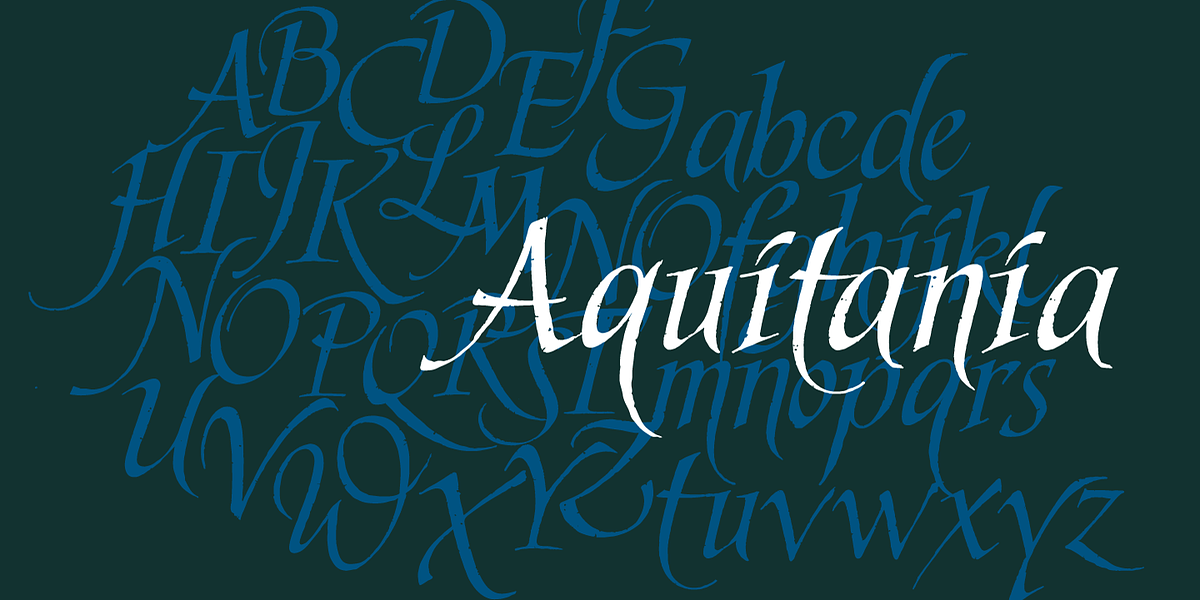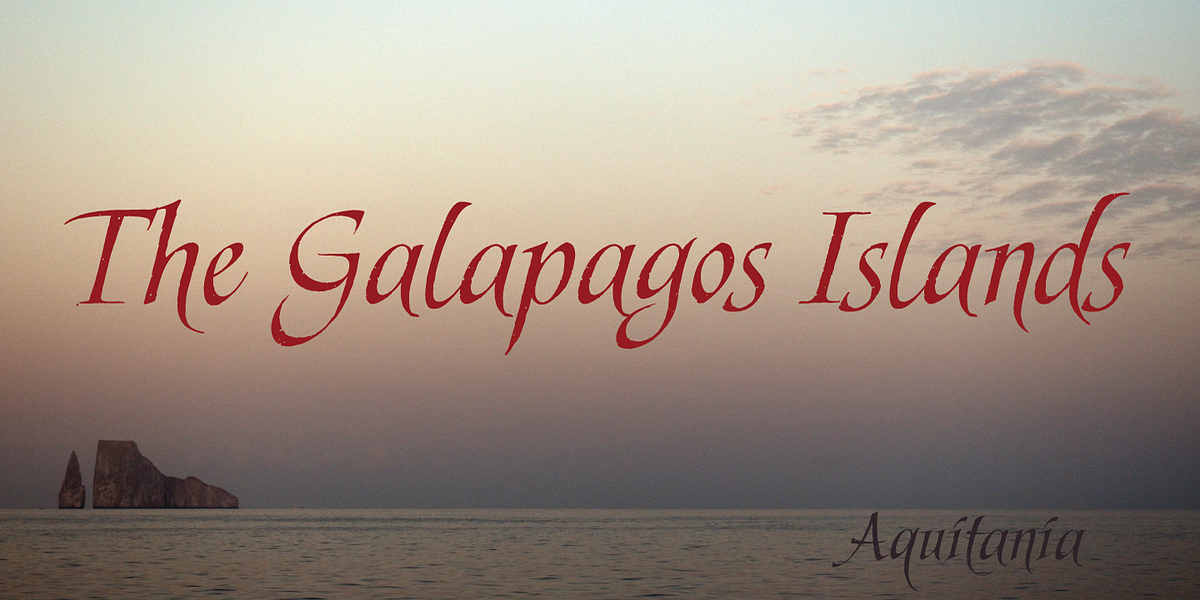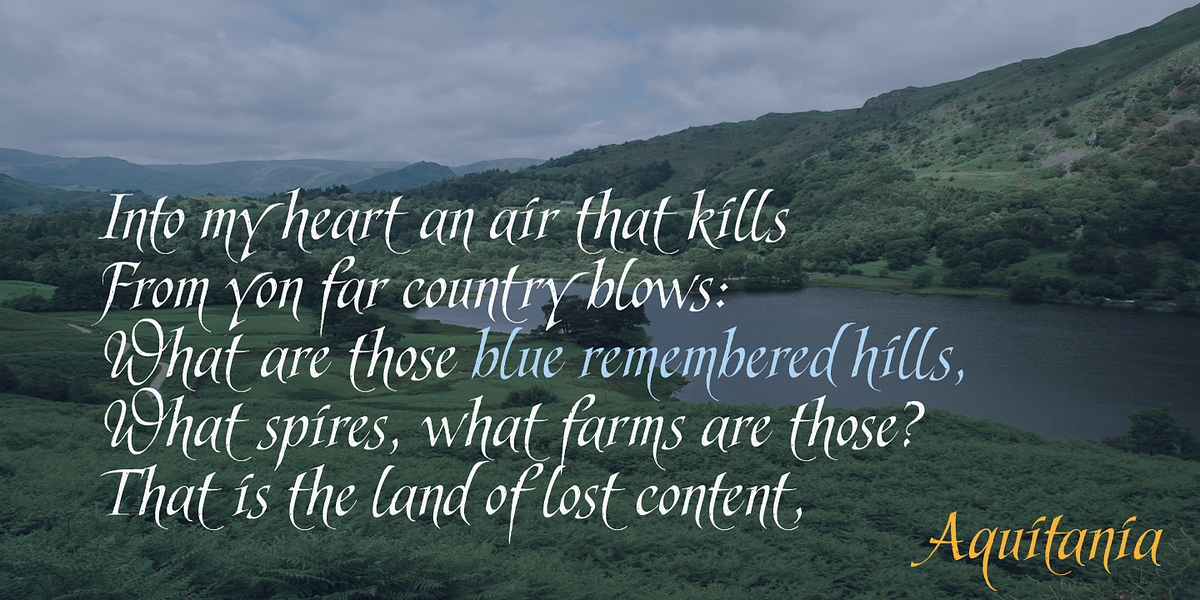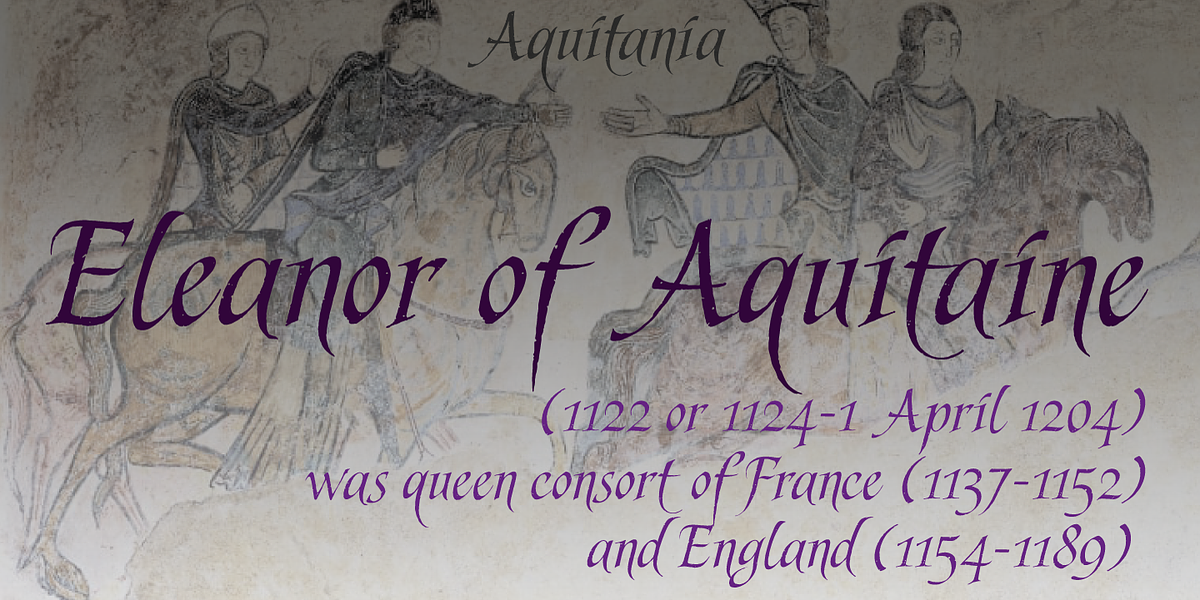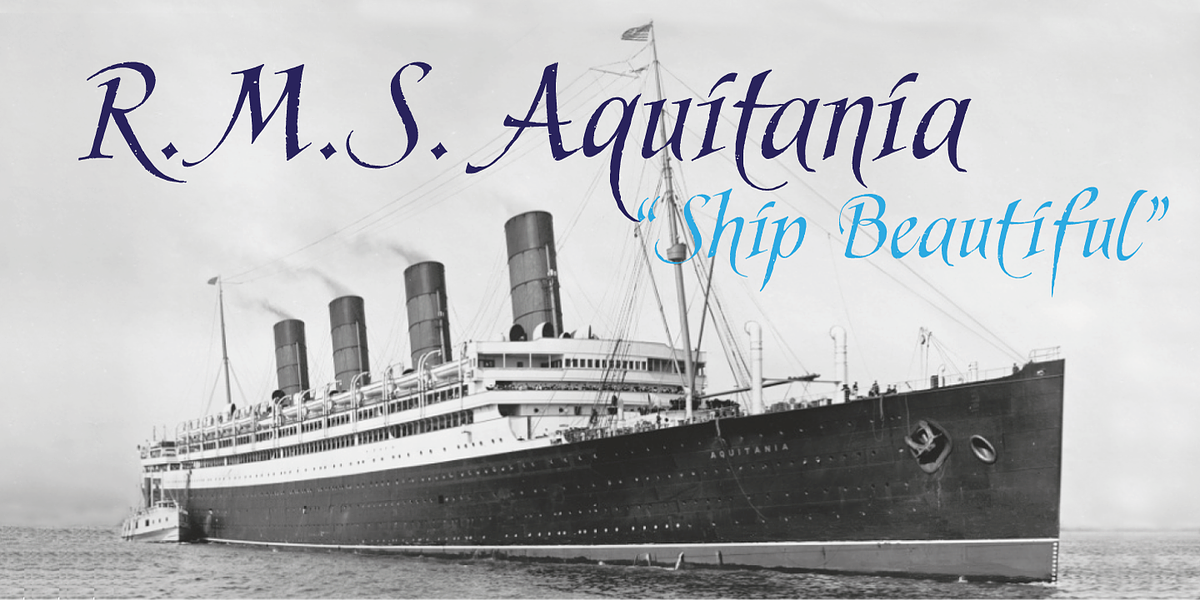
Aquitania
Aquitania Script is a handwritten font designed to emulate a natural and personal style. Its irregular baseline adds individuality and charm, making it suitable for various applications like packaging, invitations, greeting cards. The textured finish gives it a unique visual appeal. Notably, Aquitania Script remains legible even at smaller sizes, allowing its use in both headlines and body text.